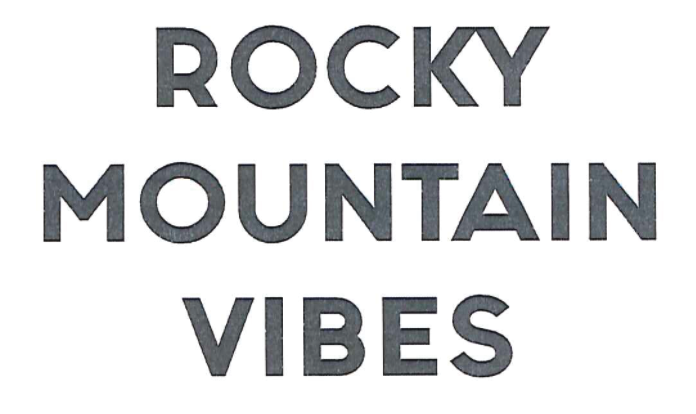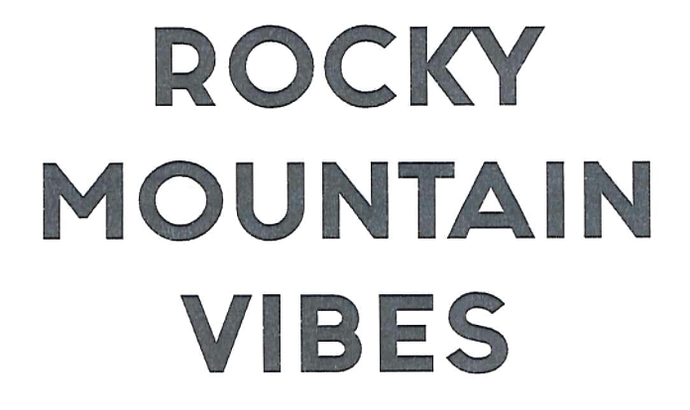
Hey guys just trying to find the name of this font for a project Thank you!!!
It’s very close to the Gotham typeface. Perhaps a variation of Gotham Bold as the font.
It’s also close to Posterama 1927 bold
It’s also close to Red Ring Bold
That R is the fly in the ointment.
Fashion Fetish Heavy (Regular)
It is looks alike “Raleway ExtraBold”